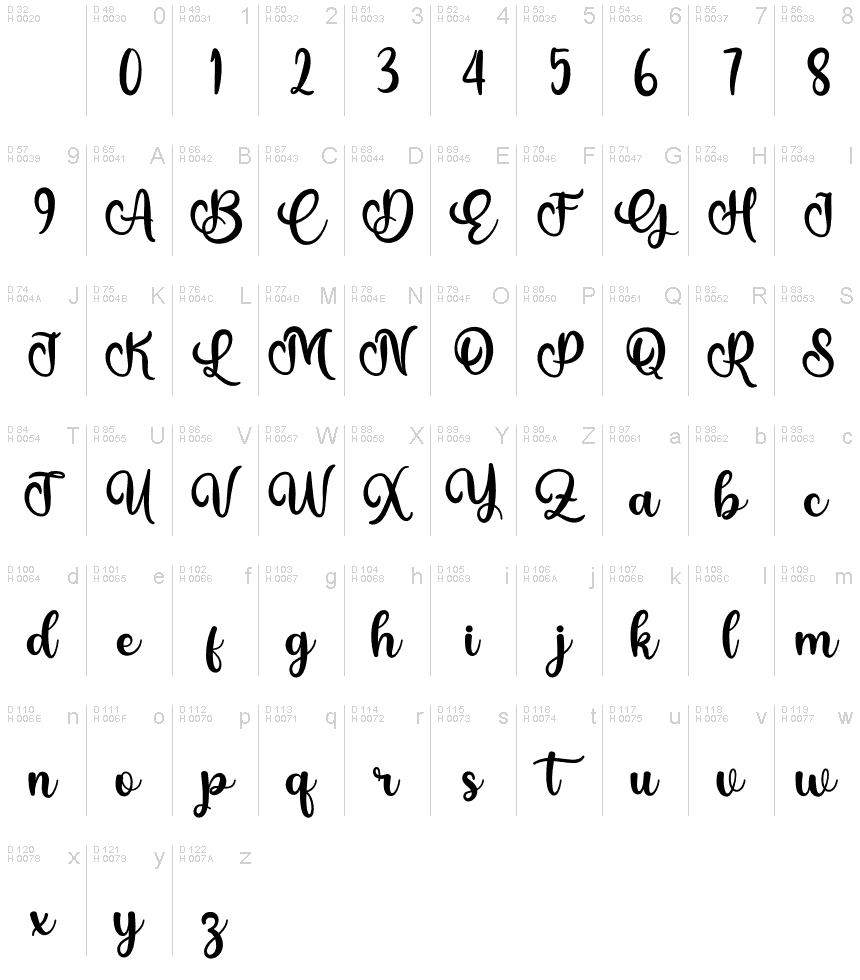
Michalina Demo
Michalina, the stunning calligraphy semi-bold font designed by Letter Art Studio, is the perfect choice for a variety of projects. Its elegant and timeless style is suitable for wedding invitations, greeting cards, logos, and branding materials. The carefully crafted curves and strokes of this font create a luxurious feel that will make any text stand out. Whether you're looking to add some sophistication to your website or create eye-catching packaging design, Michalina's semi-bold weight is versatile enough to suit any project. Get ready to elevate your designs with this beautiful font!